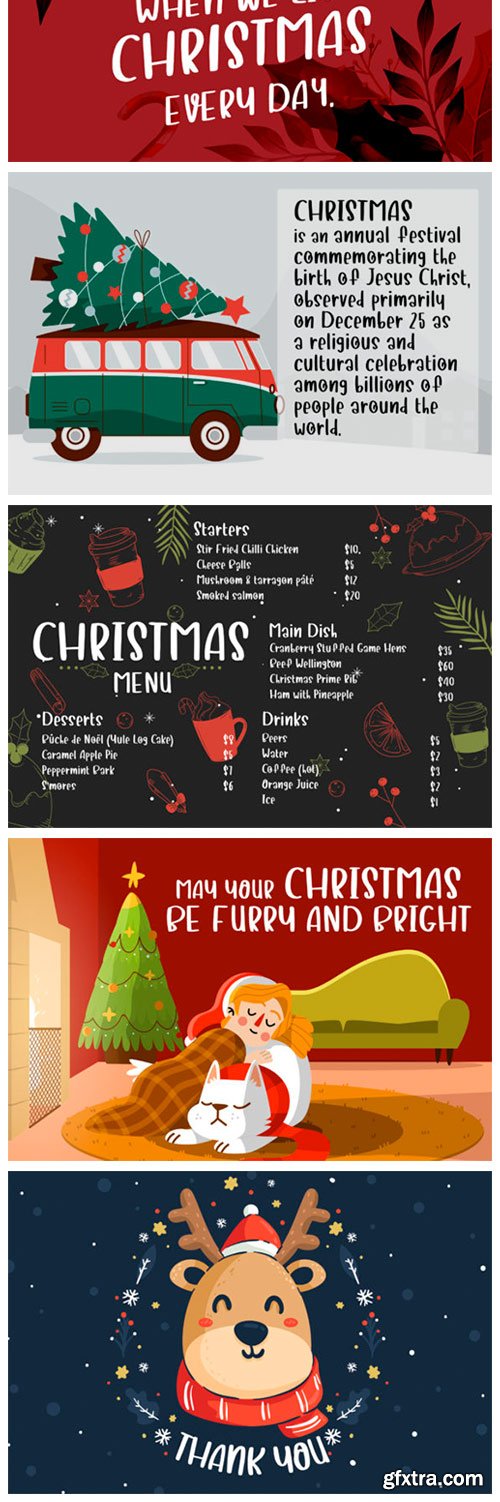
Casper City Font
Casper City is a playful and cartoon like handwritten font. It is suitable for any branding, product packaging, invitation, quote, t-shirt, label, poster, logo that you wish to develop.